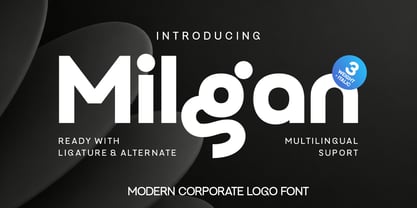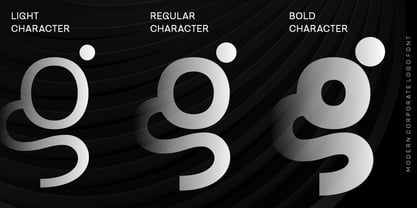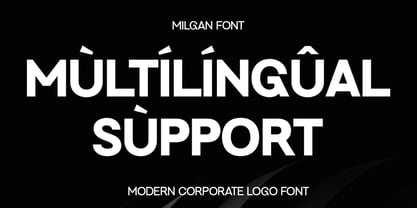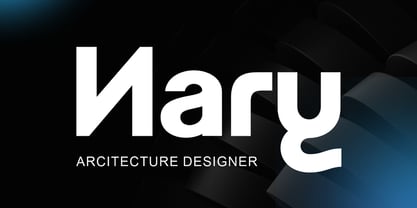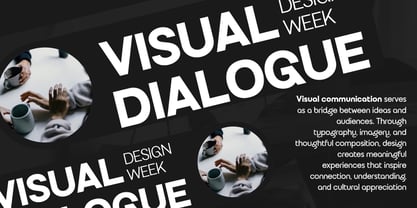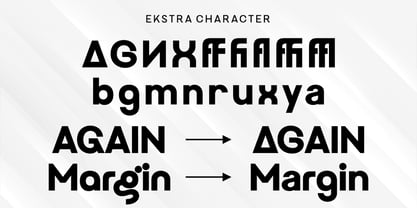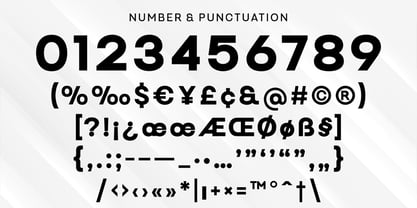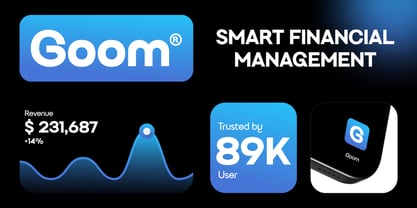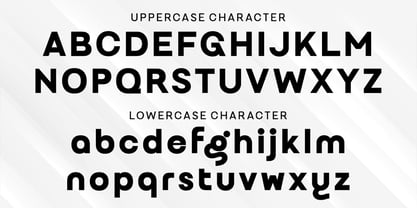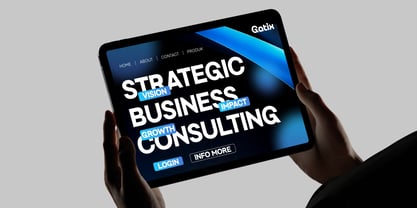
Milgan
by Bimaksara
The Milgan Font Family was designed by Nur Mokhamad Bismatulloh and published by Bimaksara. Milgan contains 6 styles and family package options. More about this family
Milgan is a modern corporate sans serif designed for clean branding, logo design, and professional visual identity. With its bold geometric structure and carefully balanced proportions, Milgan delivers a strong yet approachable appearance across both print and digital applications.
Created for designers who need versatility, Milgan includes 3 weights with matching italics, allowing you to build consistent typography systems for branding, editorial, packaging, advertising, UI design, and corporate communication.
Beyond its minimalist appearance, Milgan features a collection of stylish ligatures and alternate characters, giving you extra flexibility when crafting distinctive logos and headlines while maintaining excellent readability.
Features
• 3 Weights + Matching Italics
• Uppercase & Lowercase
• Numbers & Punctuation
• Ligatures
• Stylistic Alternates
• Multilingual Support
Perfect For
• Logo Design
• Corporate Branding
• Business Identity
• Packaging
• Editorial Design
• Website & UI
• Headlines
• Marketing Materials
• Social Media Graphics
Whether you're creating a premium brand identity or a modern corporate presentation, Milgan provides the clarity, confidence, and versatility needed for contemporary design projects.
Designers: Nur Mokhamad Bismatulloh
Foundry: Bimaksara